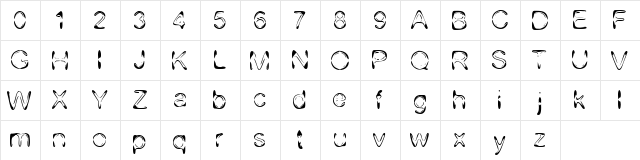
DJ 4Skin Regular Font Preview
DJ 4Skin Regular
Design Context for DJ 4Skin Typeface
DJ 4Skin is a composed and adaptable typeface that performs quietly and consistently across a wide range of design contexts.